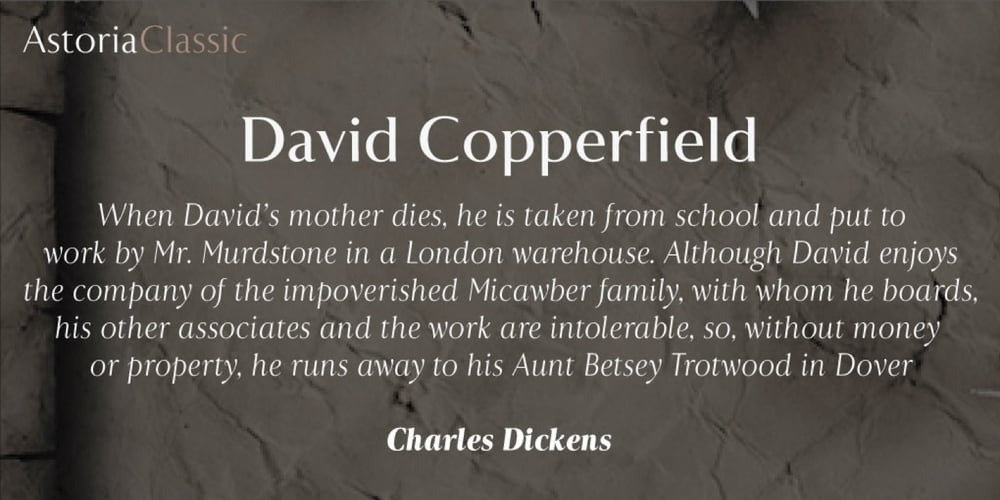
Astoria Classic Font Family was designed by Alan Meeks and published by Alan Meeks. Astoria Classic contains 8 styles and family package options. The latest addition to the Astoria Range, Astoria Classic has the same basic characteristics as Astoria but with vertical stress. The characteristic subtle top left serif which makes it not quite a Roman and not quite a sans has been retained. Unlike Astoria, the Italics in form are old style yet have a modern look. This is designed specifically as a text face, however it still works very well as a headline font.